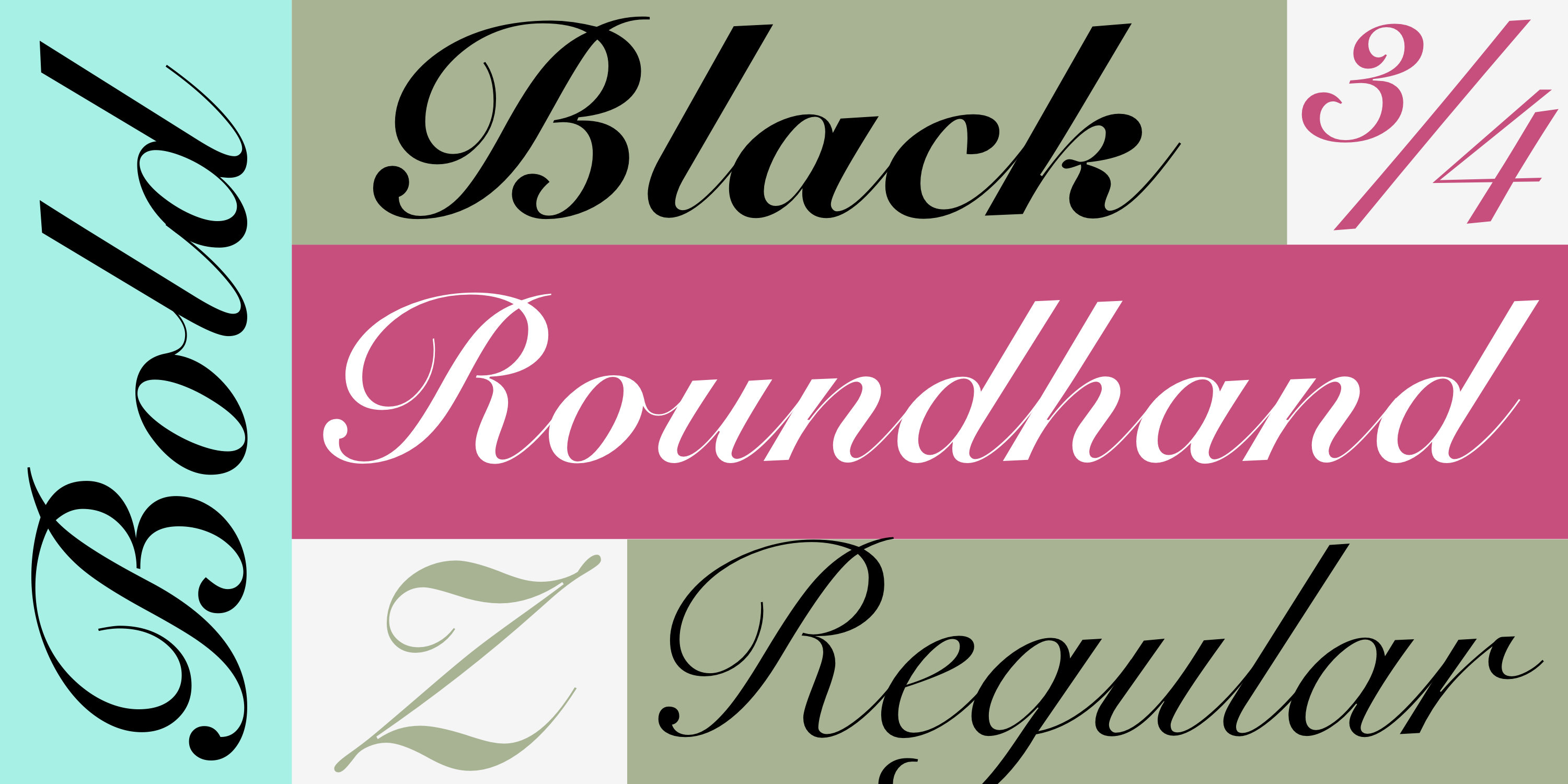
Roundhand BT Font Free Download is an elegant script typeface perfect for wedding invitations, greeting cards, branding, packaging, and luxury editorial design. Its flowing, graceful strokes bring a timeless sophistication to any project.
What makes this font so exciting is its beautiful calligraphic style that combines traditional handwriting with modern legibility, allowing your designs to convey warmth and refinement. Roundhand BT Font adds a touch of classic elegance to your creative work.
Roundhand BT Font includes Regular and Italic styles, offering designers flexibility to craft expressive and stylish typography.
Elevate your projects with the refined and fluid charm of Roundhand BT Font Free Download, and let your designs speak with grace and personality.